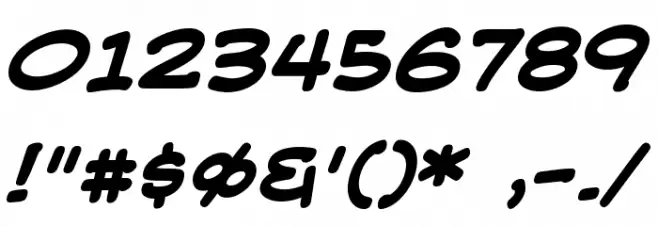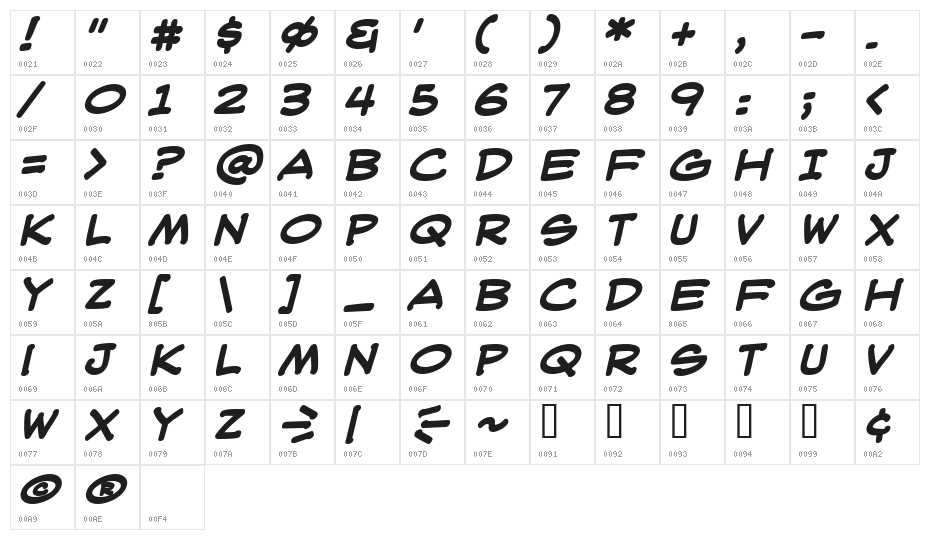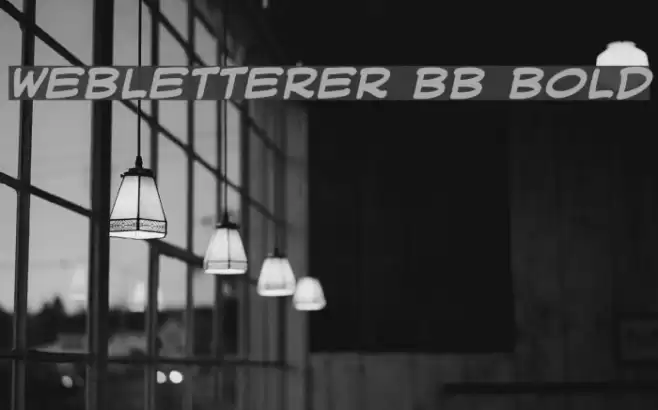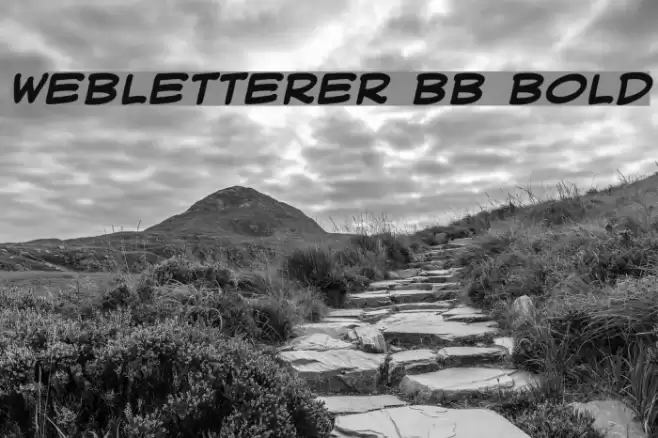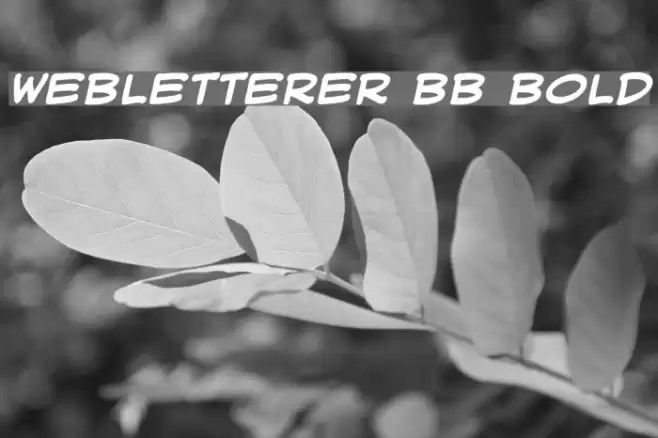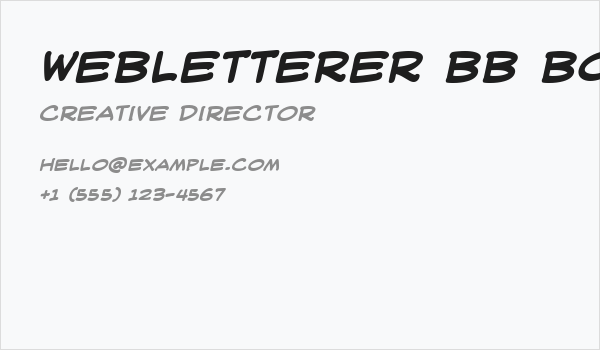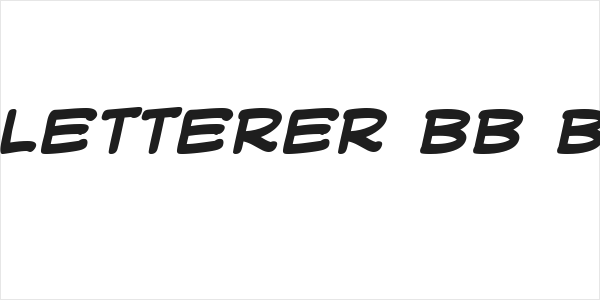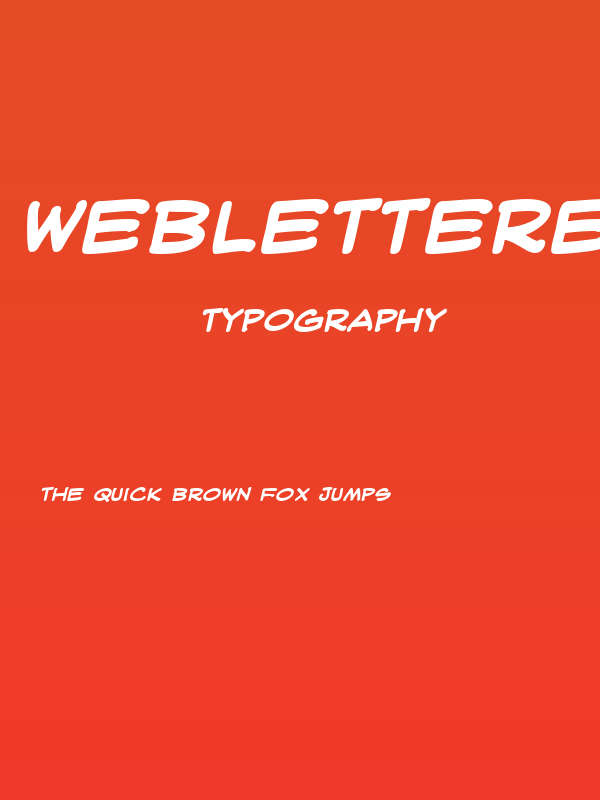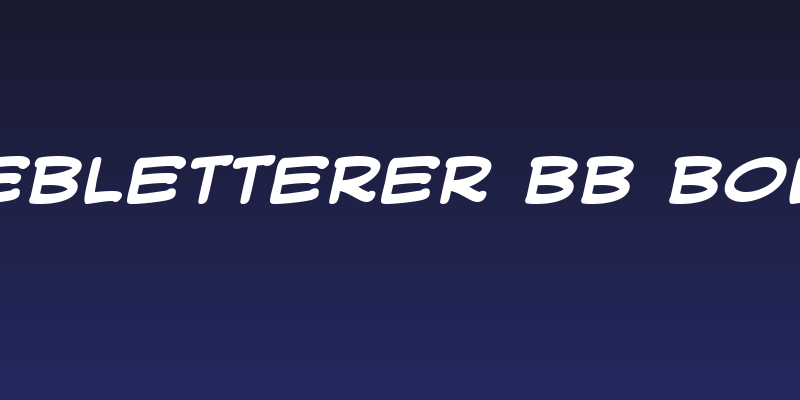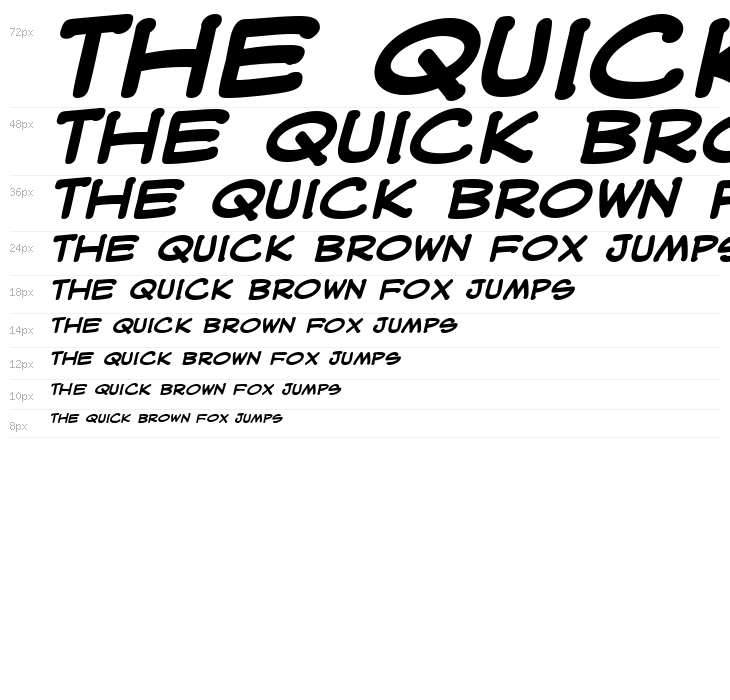
WebLetterer BB Bold Font
WebLetterer BB Bold Description
This font features a bold and dynamic style with a handwritten aesthetic, characterized by its smooth, flowing curves and slightly slanted letters. The uppercase and lowercase letters maintain a consistent thickness, providing a uniform appearance. The numbers and special characters are designed to complement the alphabet, with rounded edges and a playful feel. The overall design is modern and energetic, making it suitable for projects that require a personal touch or a casual, friendly vibe.